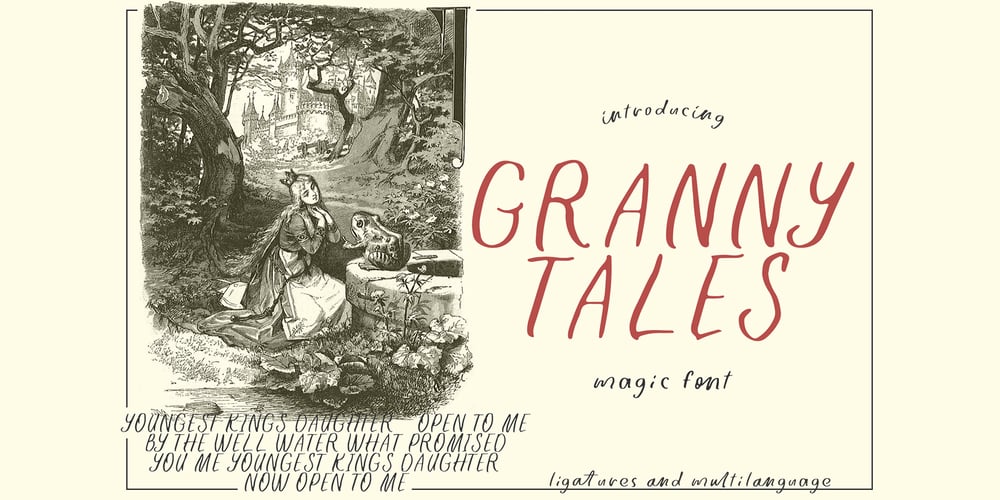
Granny Tales
Granny Tales font
Granny Tales Font Family was designed by Oksana Shudegova and published by OKSHUtypeCO. Granny Tales contains 1 styles and family package options. Granny Tales – a new fresh handmade calligraphy font.Very suitable for greeting cards, branding materials, business cards, quotes, posters, and more!This font are perfect for wedding postcard. Or you can create perfect and unique design of your logo, blog, stationery, marketing, magazines and more :)Features : Ligatures UpperCase & Lowercase Numerals & Punctuations Multilingualcharacters(AÀÁÂÃÄÅCÇDÐEÈÉÊËIÌÍÎÏNÑOØÒÓÔÕÖUÙÜÚÛWYÝŸŸ ÆŒßÞàáâãäåæçèéêëìíîïðñòóôõöøùúûüýÿ)